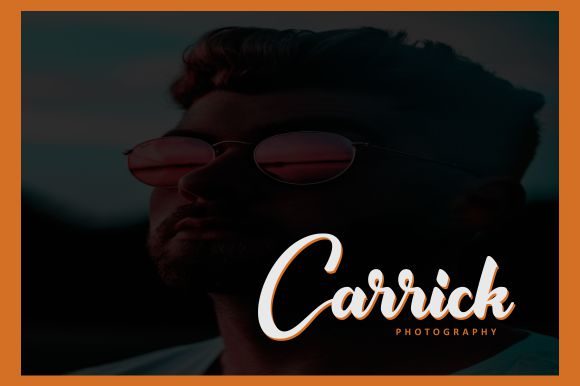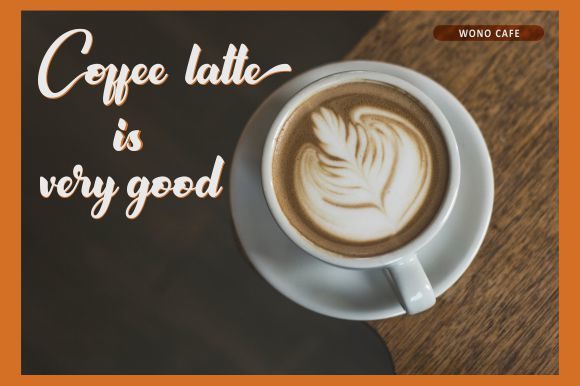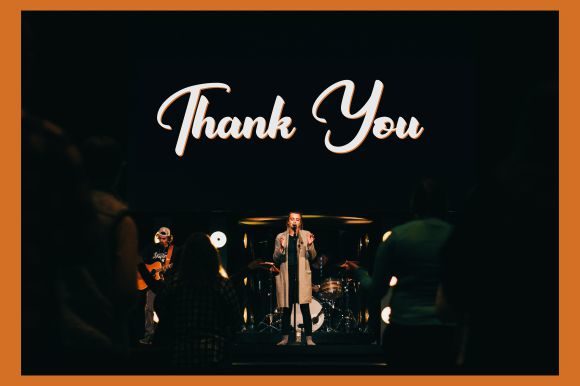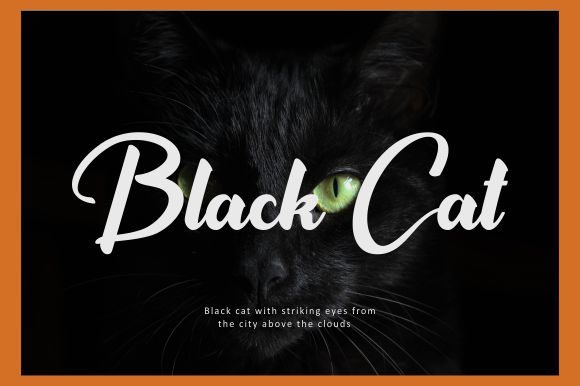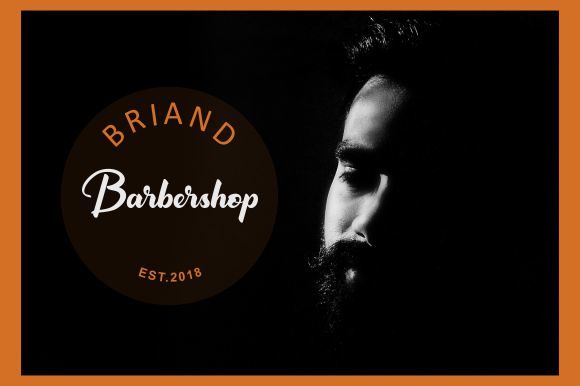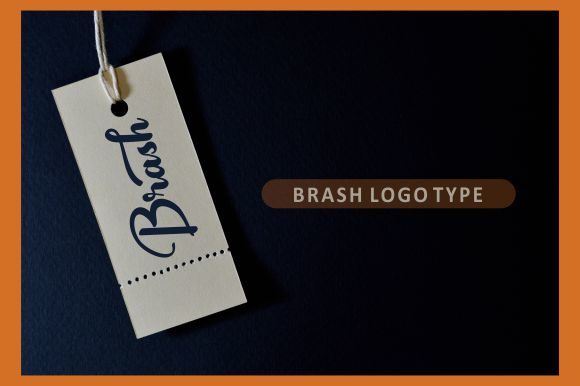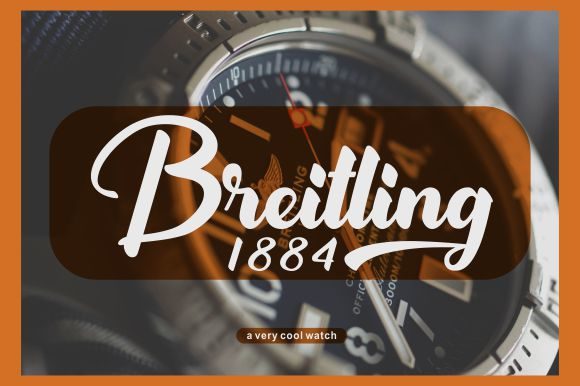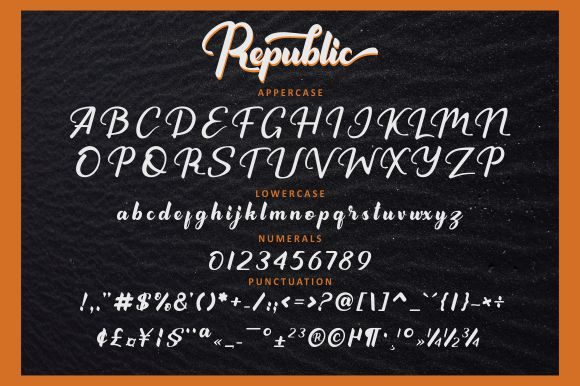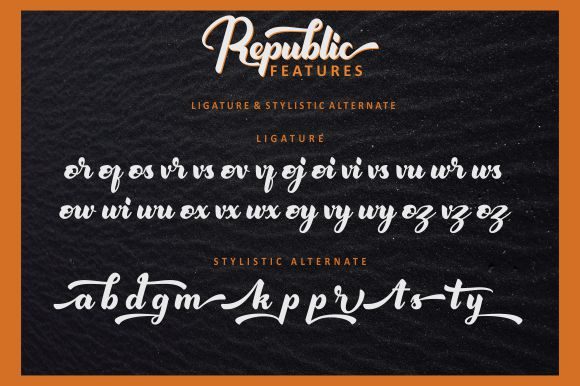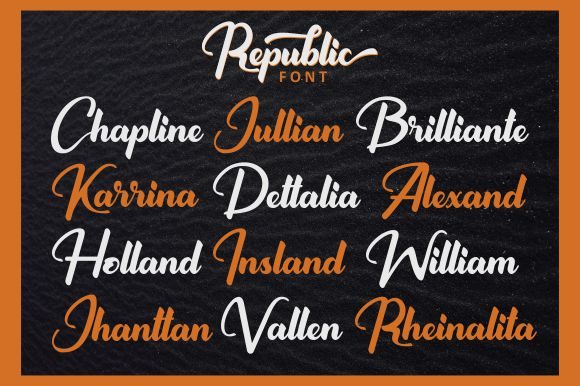
HomeScript FontsRepublic Font Script Fonts Republic Font FacebookXPinterestWhatsApp Republic Font Poster 2 Republic Font Poster 3 Republic Font Poster 4 Republic Font Poster 5 Republic Font Poster 6 Republic Font Poster 7 Republic Font Poster 8 Republic Font Poster 9 Republic Font Poster 10 Republic Font Poster 11 Republic Font Poster 12 About Republic Font Republic is a strong and powerful handwritten font with a bold feel. Fall in love with its stunning charm. DOWNLOAD ON CREATIVE FABRICAThis font is sold and delivered by Creative Fabrica. Font Canyon may earn a commission if you buy through this link. People also explored Willoves Font Peony Font Skyler Charleigh Font Granitta Font Younger Font Happy Style Font Unbound Font Consider Font Queenty Font 350 0 TagsRepublic Font Previous articleWesttgonia Barneh FontNext articleMaudy Audy Font LEAVE A REPLY Cancel reply Comment: Please enter your comment! Name:* Please enter your name here Email:* You have entered an incorrect email address! Please enter your email address here Website: Save my name, email, and website in this browser for the next time I comment. Personal Use Free Propaniac Personal Use Free Read more about this font Zero Panzer Personal Use Free Read more about this font Blast Personal Use Free Read more about this font Pan Pizza Personal Use Free Read more about this font BLOG Best Fonts for YouTube Videos: Make Your Thumbnails Stand Out Best Fonts for YouTube Videos: Make Your Thumbnails Stand Out Choosing the right font can make a massive difference in how your YouTube videos perform.... Free Fonts Risk: Why Free Fonts Can Be Dangerous for Designers Free vs Paid Fonts: Why Investing in Premium Fonts Is Worth It To increase your work productivity, choose the most readable fonts.